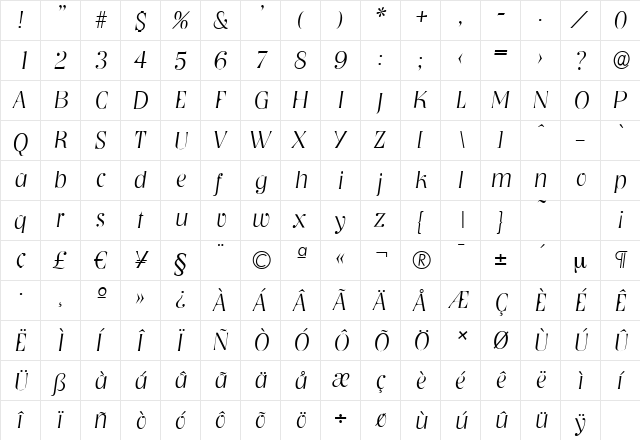
NashvilleSerial-Xlight Italic
Design Context for NashvilleSerial-Xlight Typeface
NashvilleSerial-Xlight takes a measured approach to typography — its balanced proportions and neutral character make it a reliable workhorse for both digital and print work. The slanted form adds forward momentum and visual energy. Its slender proportions lend an understated elegance to any composition.
Pro Tip: Use NashvilleSerial-Xlight for emphasis, pull quotes, and subheadings where its slanted energy can add rhythm to the layout.